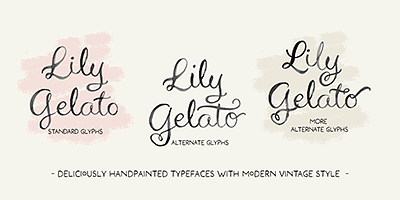
Cheerful & exuberant, this handpainted watercolor script bounces along the page and screen. Soft color variation in the line work make this font unique and mimic organic lettering.
Features: Standard & discretionary ligatures, alternate glyphs, fractions and bonus glyphs.